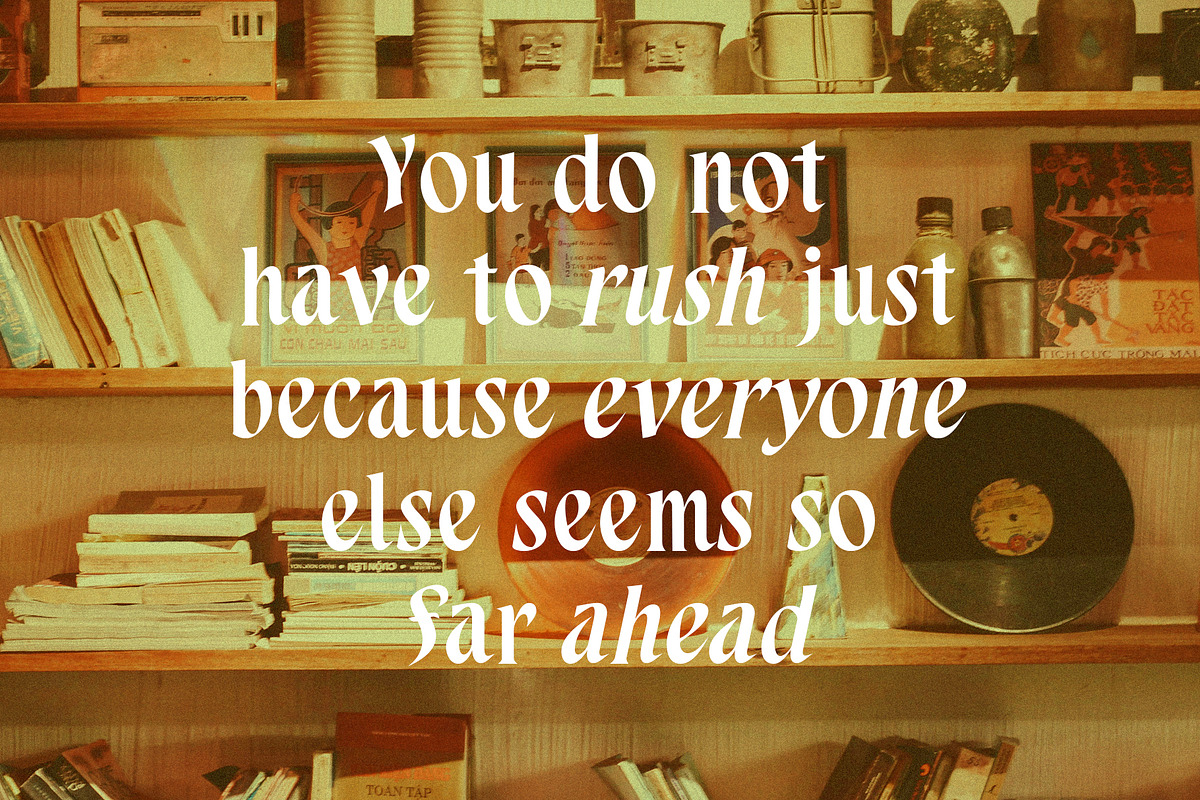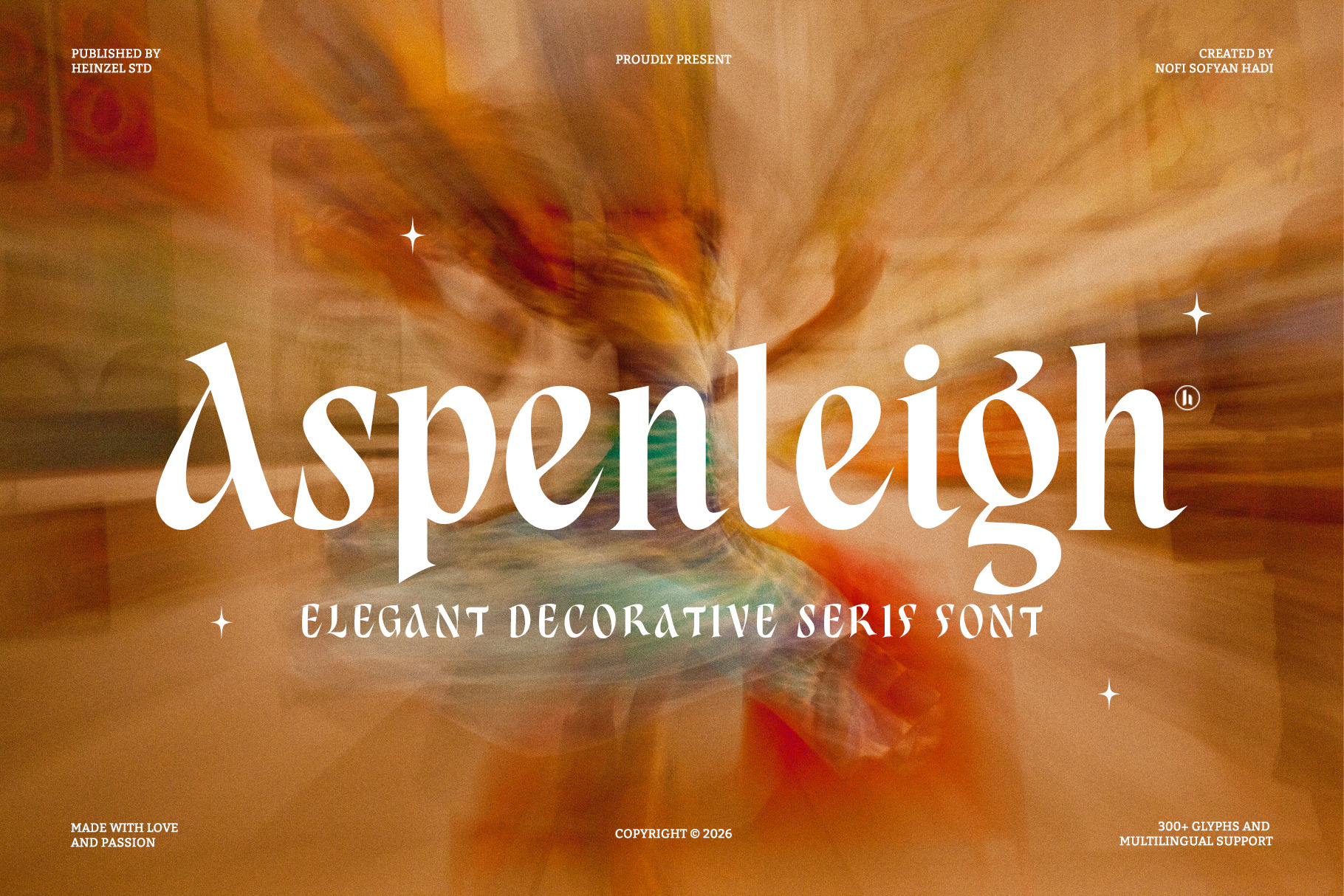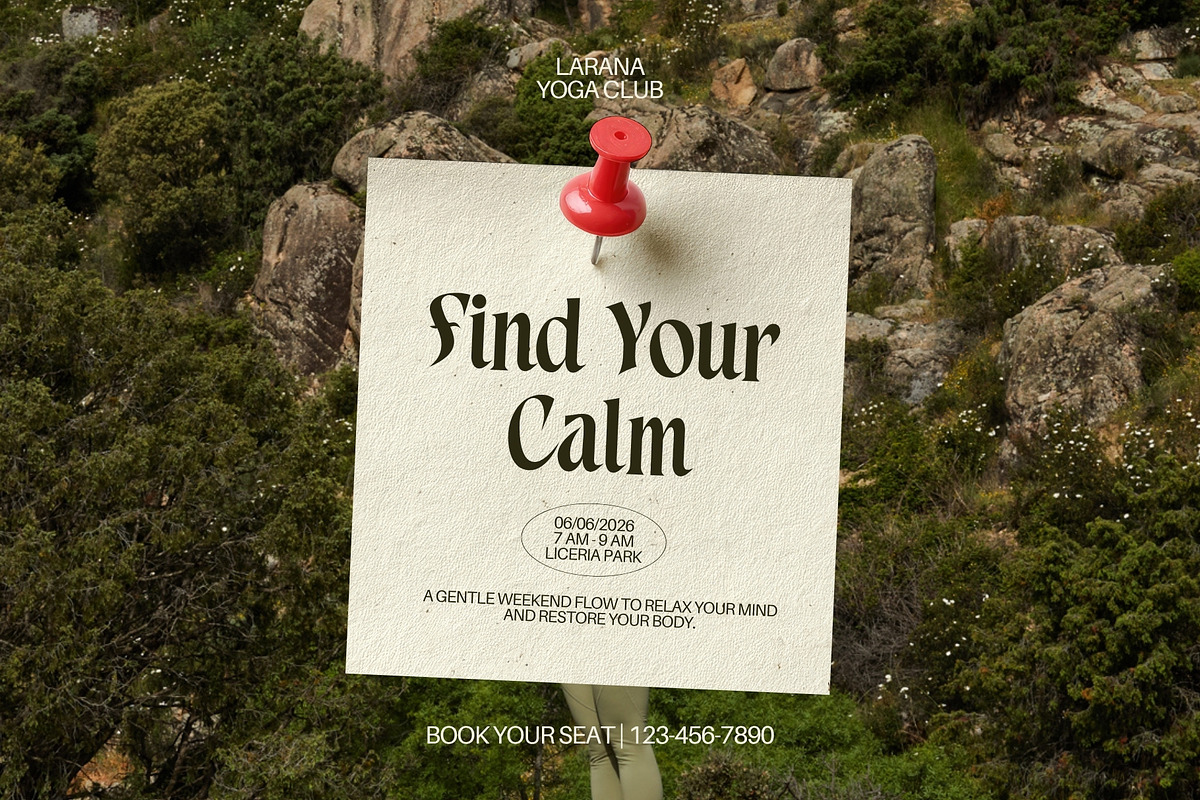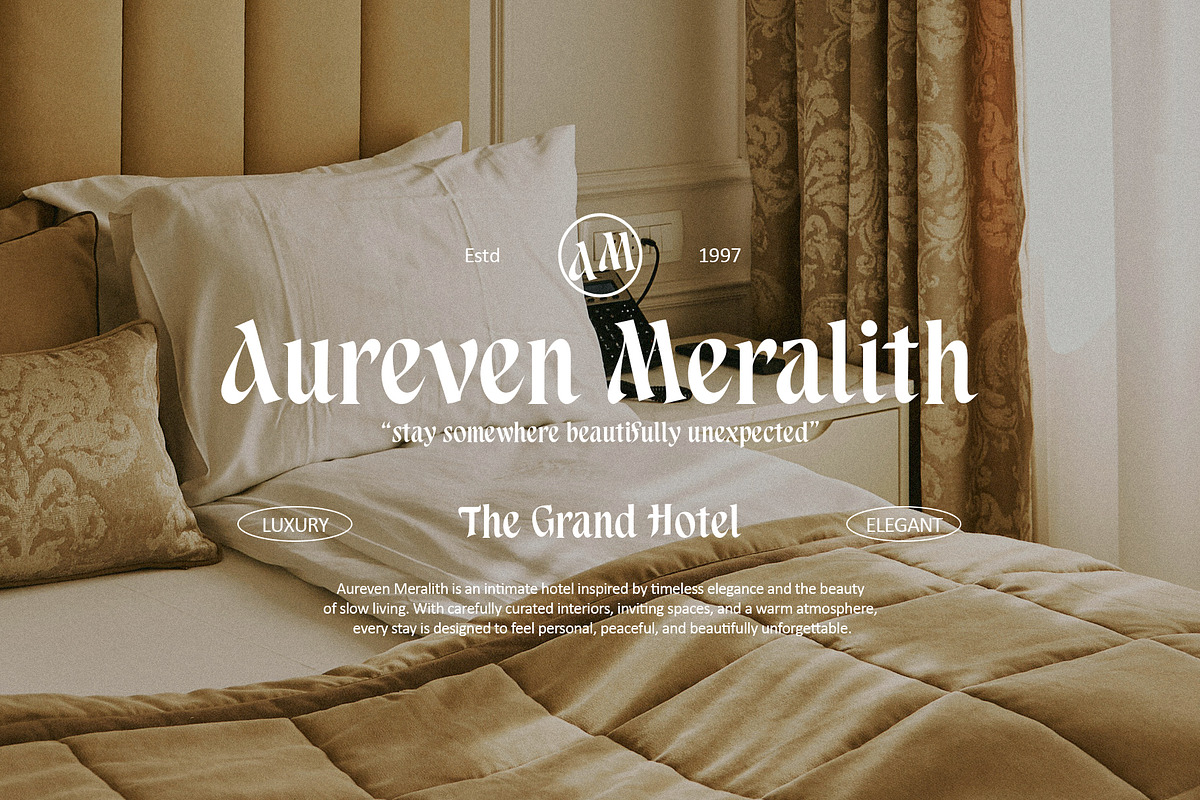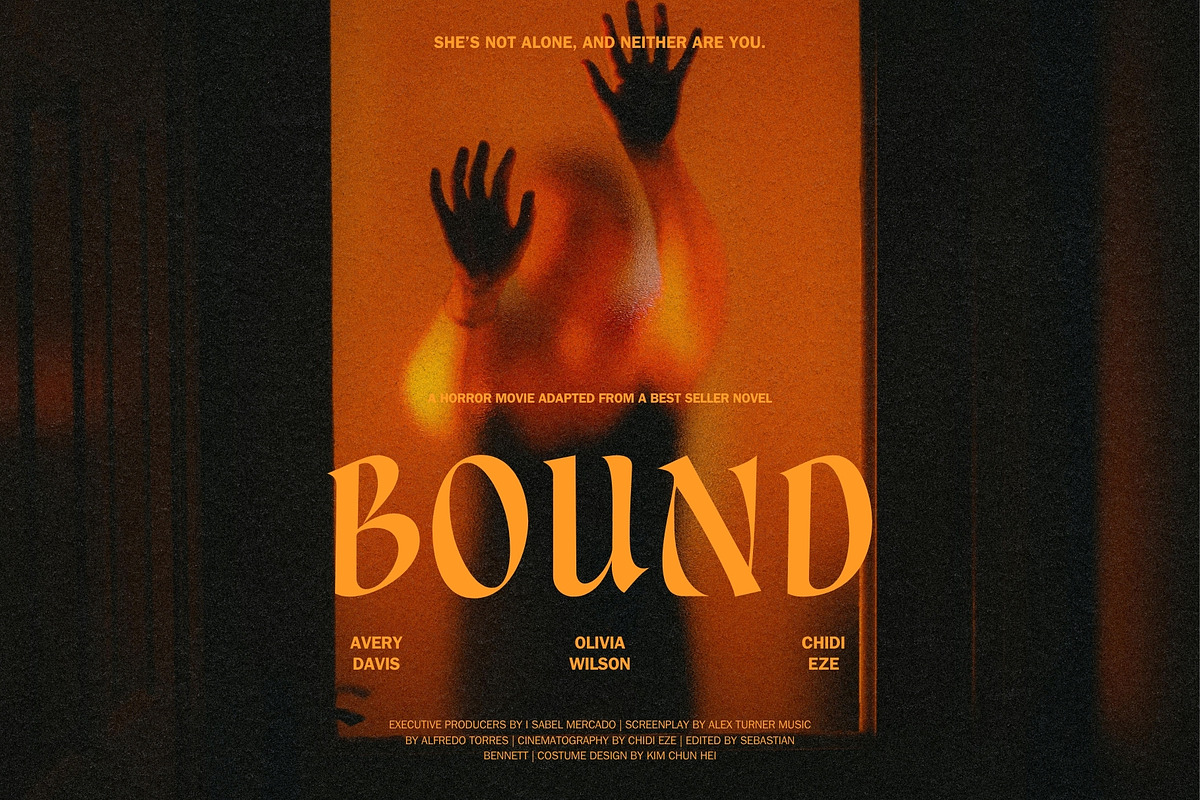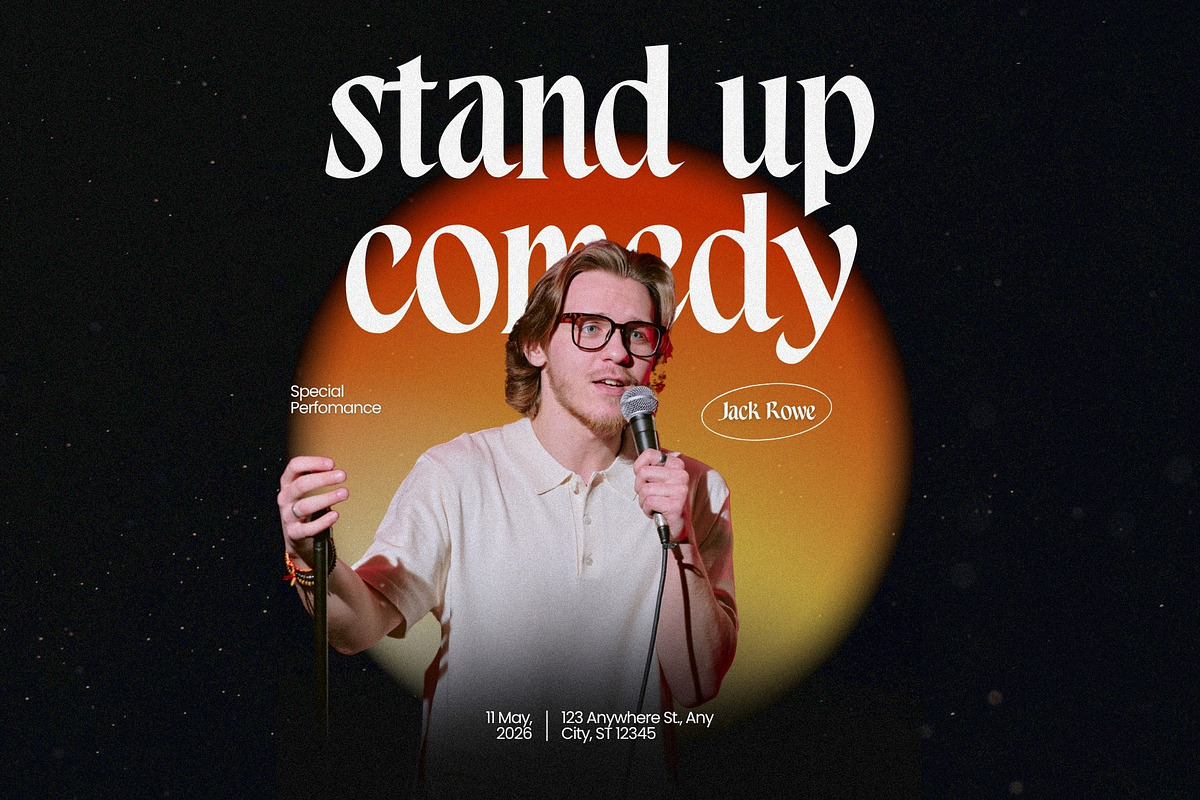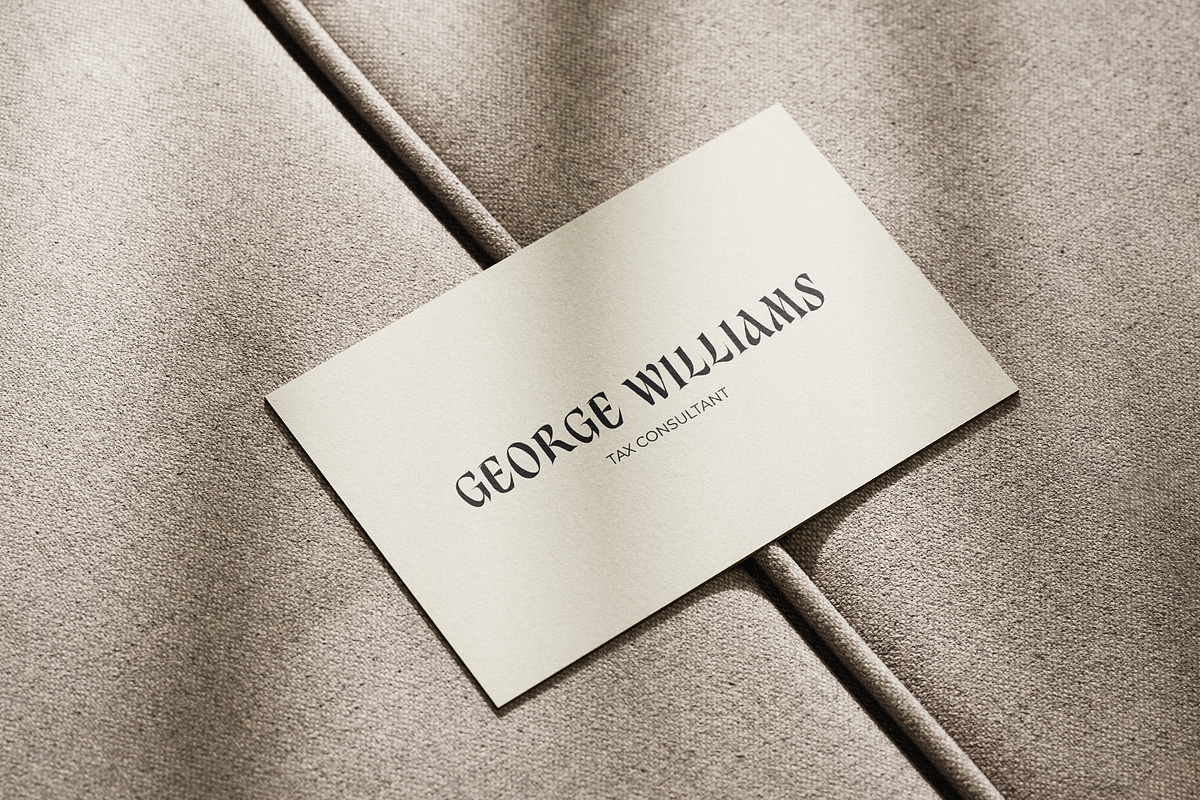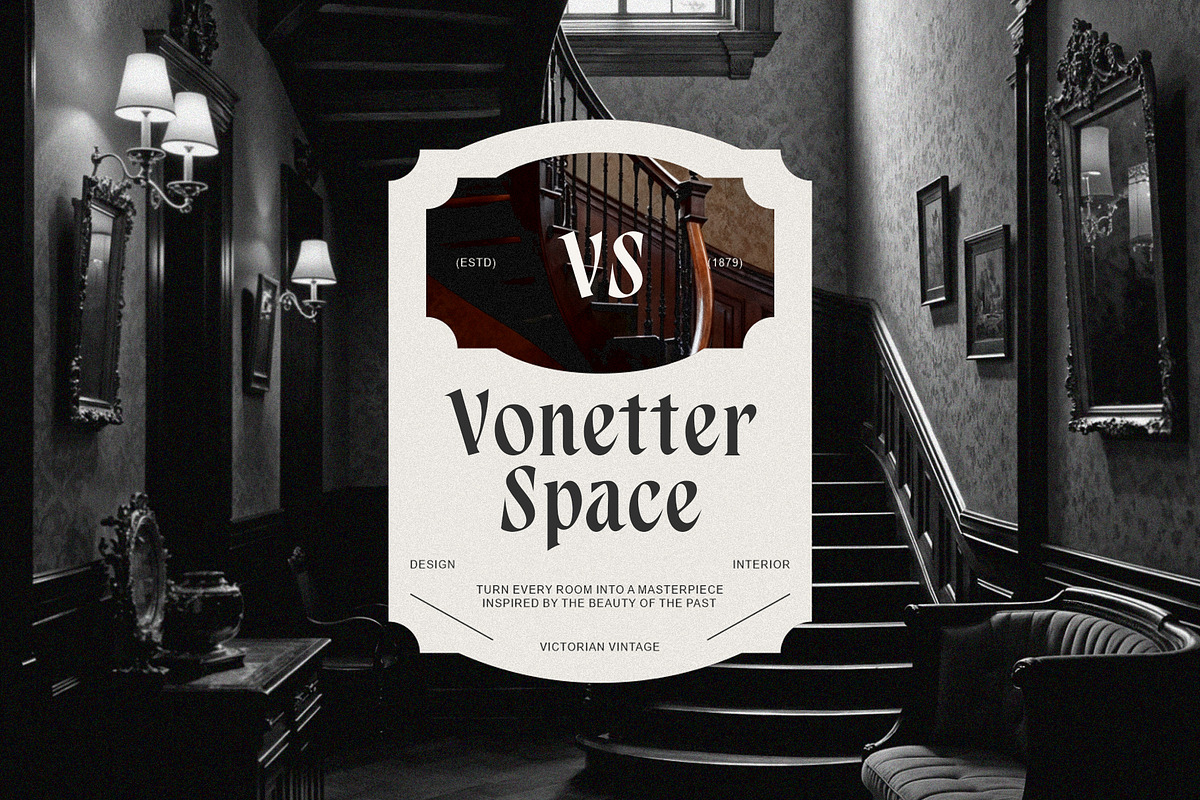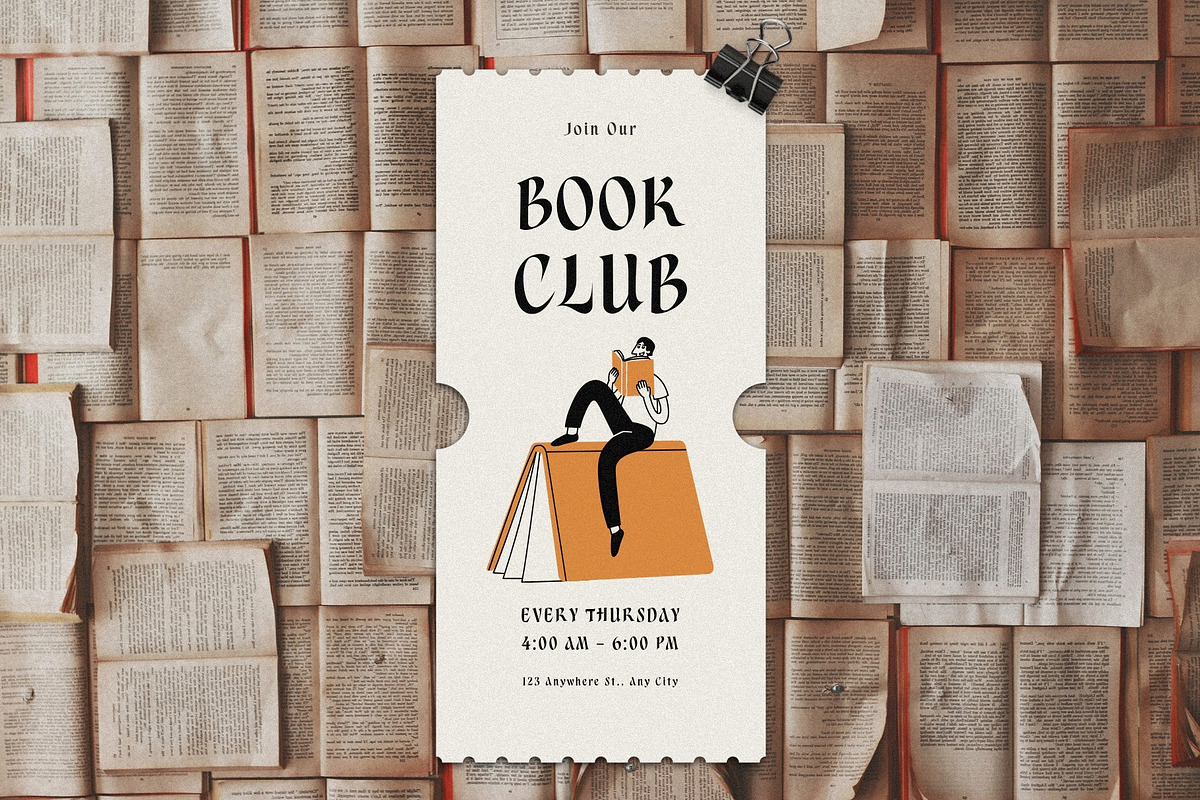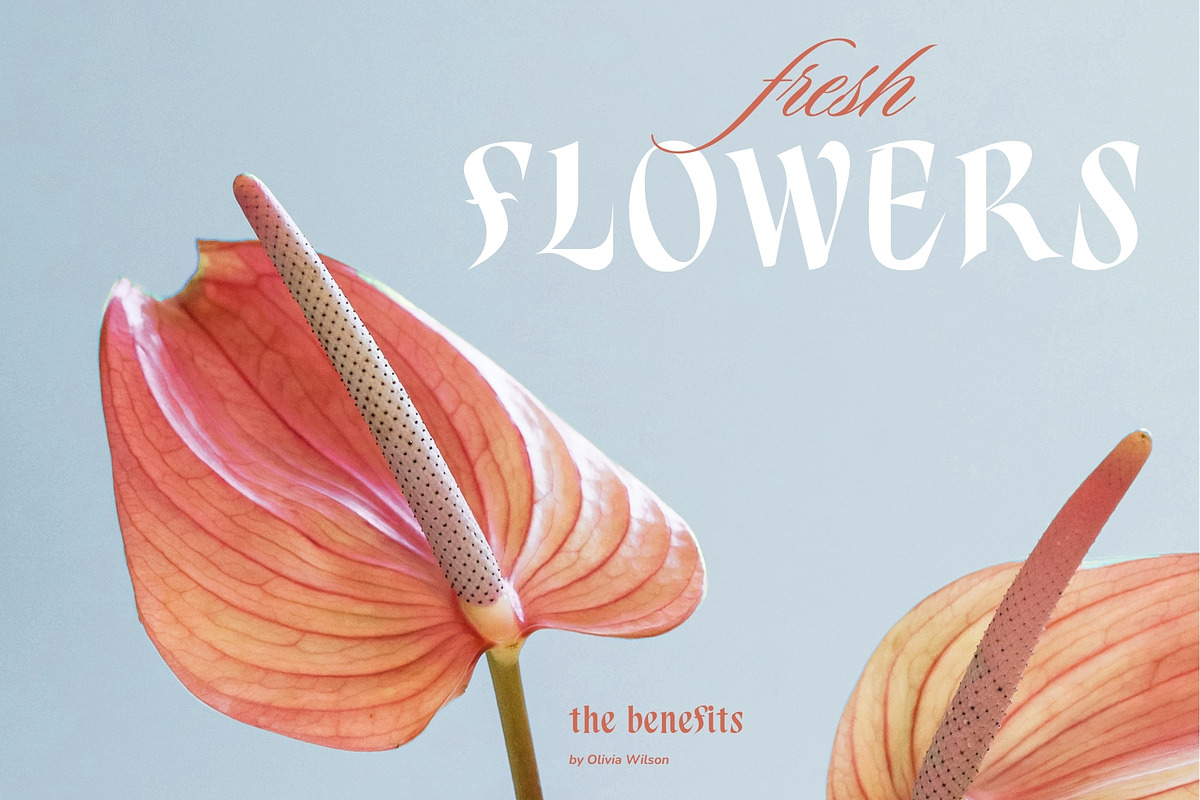
Aspenleigh Decorative Serif Font
Aspenleigh Font – Elegant Decorative Serif Display Typeface
Aspenleigh is an elegant decorative serif font designed to bring a sophisticated, artistic, and luxurious character to your designs. With its distinctive high-contrast serif shapes, graceful curves, and unique decorative details, Aspenleigh creates a refined visual presence while maintaining a contemporary editorial feel.
Perfect for luxury branding, fashion logos, editorial design, magazine covers, wedding invitations, beauty products, packaging, posters, social media graphics, and elegant typography projects. Its expressive letterforms make Aspenleigh especially effective for headlines, titles, monograms, and other statement designs where typography needs to stand out.
Aspenleigh includes 300+ glyphs with multilingual support, giving designers greater flexibility for international branding and creative projects. Whether you're creating a high-end fashion identity, sophisticated stationery, or an artistic poster, Aspenleigh adds an elegant and distinctive touch.